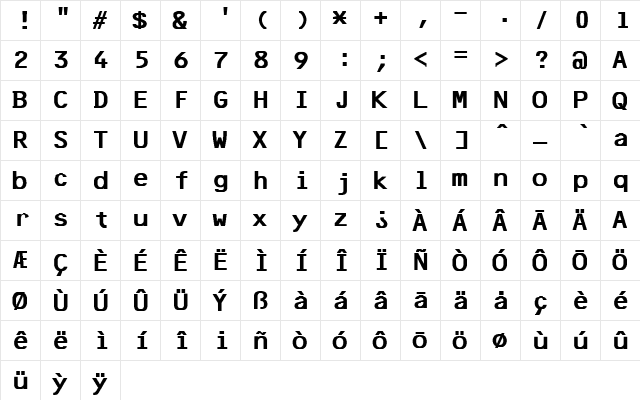
F25 Bank Printer Regular
| Foundry | Volker Busse, Berlin |
| Designer | Volker Busse, Berlin |
Design Context for F25 Bank Printer Typeface
F25 Bank Printer offers clean, dependable letterforms without strong stylistic allegiance, making it a practical choice for designers who need flexibility.